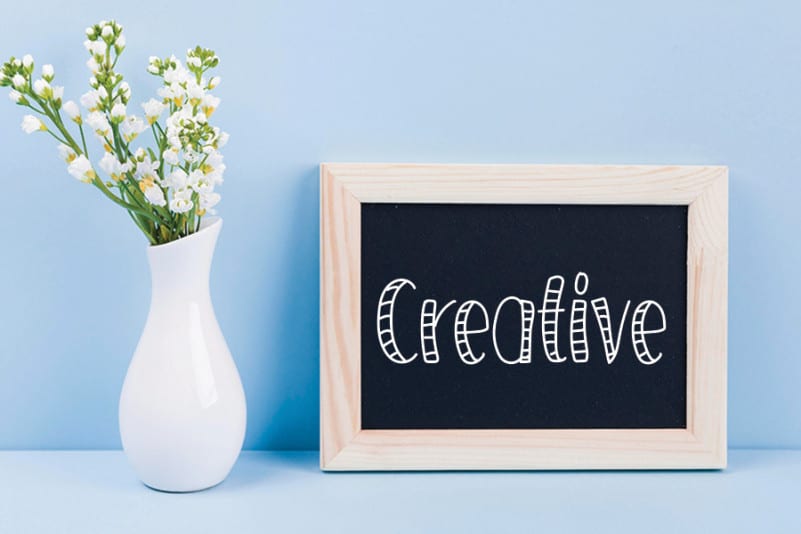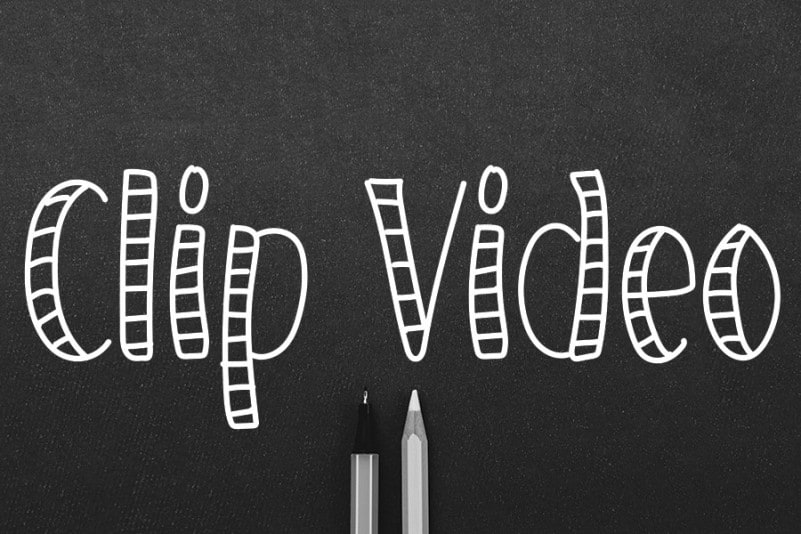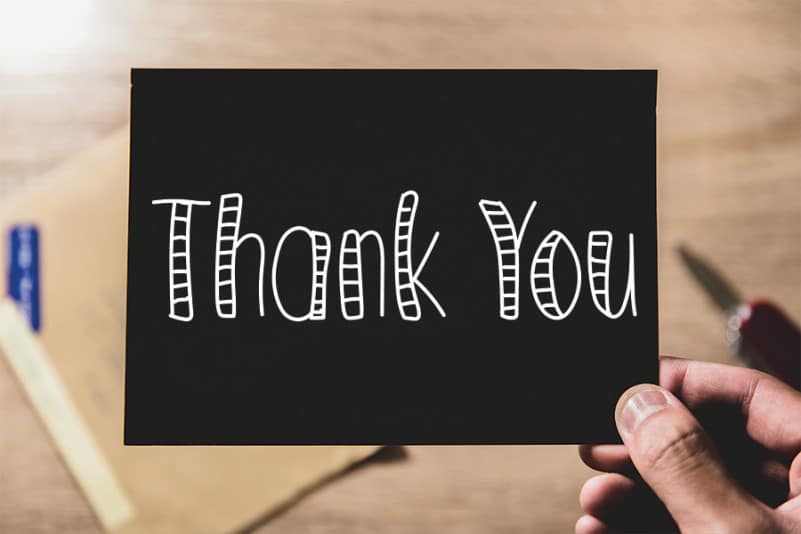
Dahlia Flowers Display Font
Dahlia Flowers Display Font is a sweet and friendly display font. Its natural and unique style makes it incredibly fitting to a large pool of designs. The only limit is your imagination!